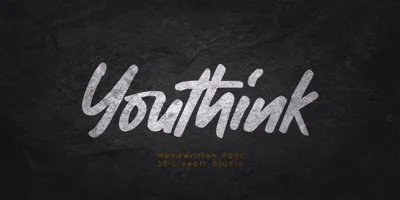
Youthink Font
Youthink Font is perfect for youth empowerment campaigns, educational technology platforms, student organization branding, teen-focused app interfaces, young entrepreneur materials, and innovative learning environments. Its dynamic character makes it ideal for youth development organizations, educational startups, student councils, teen lifestyle brands, and any application requiring energetic typography that conveys youthful innovation, creative thinking, and the transformative power of young minds shaping the future.
Youthink Font is exciting because it captures the boundless energy and innovative spirit of youth culture through dynamically crafted letterforms that reflect the fresh perspectives and creative solutions that young people bring to modern challenges. Its vibrant proportions and forward-thinking details embody the optimism and technological fluency that define Generation Z, making it perfect for organizations empowering young voices and celebrating youth-driven innovation. The font's youthful character transforms communications into rallying cries for positive change.
Youthink Font family includes youth-inspired weight variations typically featuring Light, Regular, Medium, and Bold options with energetic styling that maintains contemporary relevance. The family often incorporates modern symbols, tech-savvy elements, and youth culture icons designed for educational and empowerment applications, providing designers with comprehensive tools for creating authentic, youth-focused typographic compositions.
When selecting youth empowerment typography solutions, Youthink Font represents an exceptional choice for educational and youth-centered projects. This energetic typeface brings instant generational authenticity to any design, making it invaluable for educational institutions, youth organizations, and technology companies targeting young audiences. Whether you're developing youth leadership programs, creating educational app interfaces, or designing student empowerment campaigns, Youthink Font provides the youthful energy and innovative spirit essential for connecting with young minds in today's youth-driven innovation landscape.